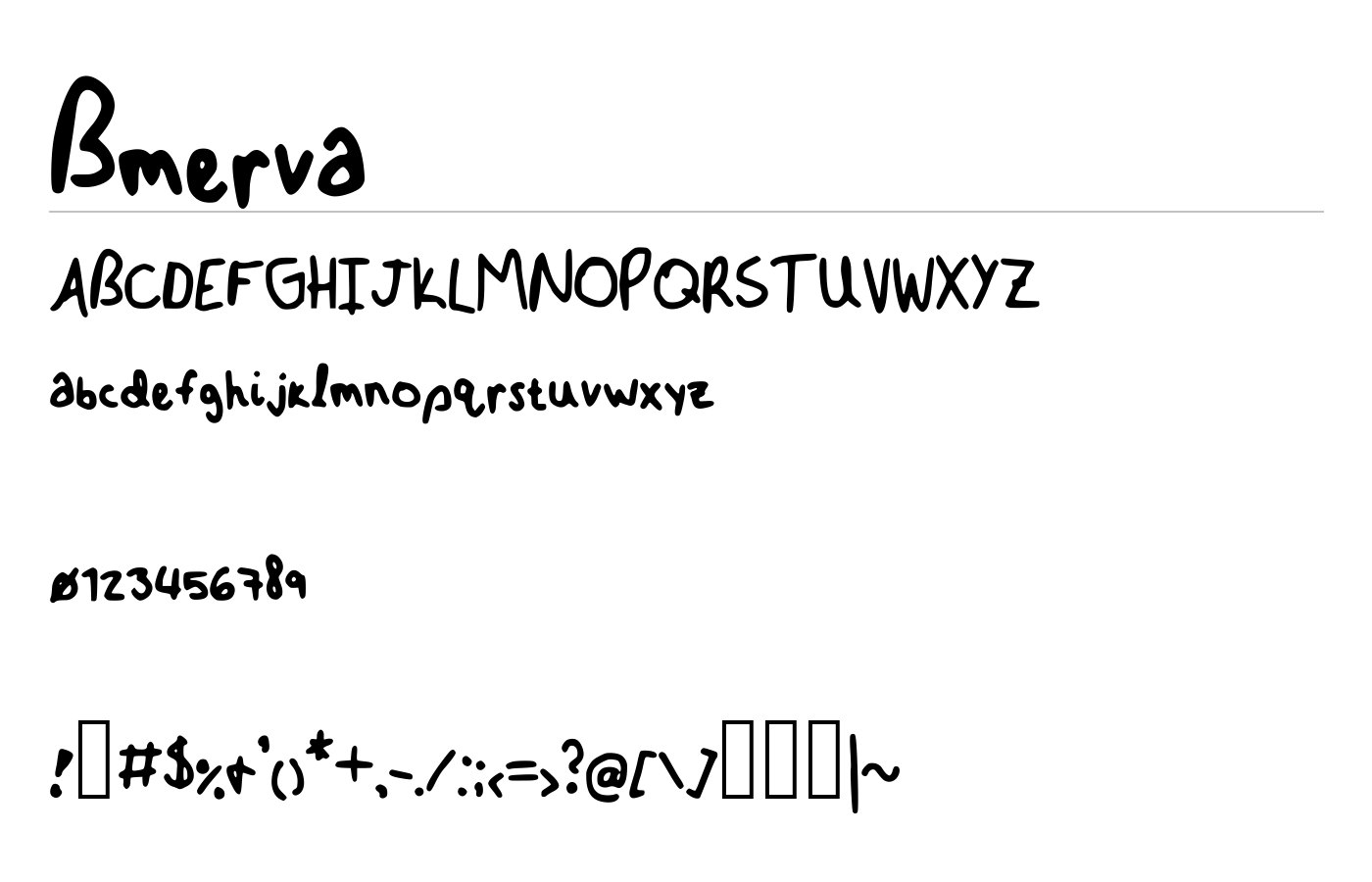
Bmerva is a playful, hand-drawn sans serif font with a casual and friendly feel. It features irregular strokes with a medium x-height and a lively, organic shape that makes it perfect for informal designs, children’s projects, or creative branding that seeks a warm, approachable touch. This font works well for headlines, logos, and fun editorial uses where personality and uniqueness are key.
Bmerva Font
About Bmerva Font